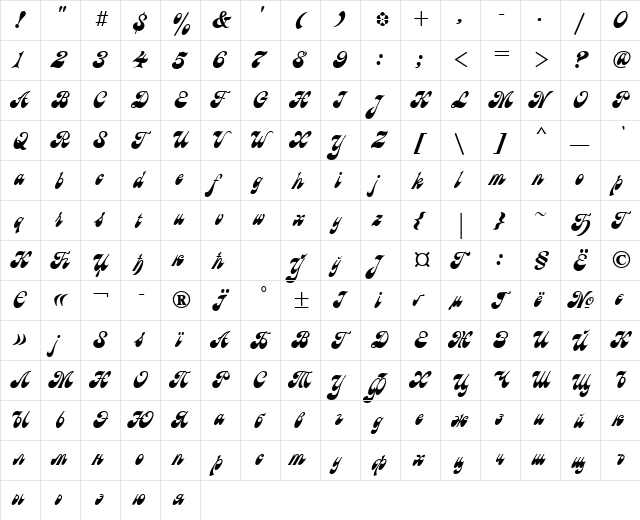
AstronCTT Regular
Design Context for AstronCTT Typeface
AstronCTT is a composed and adaptable typeface that performs quietly and consistently across a wide range of design contexts.